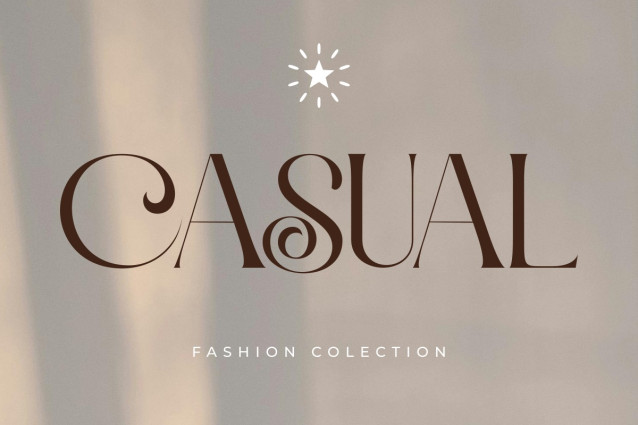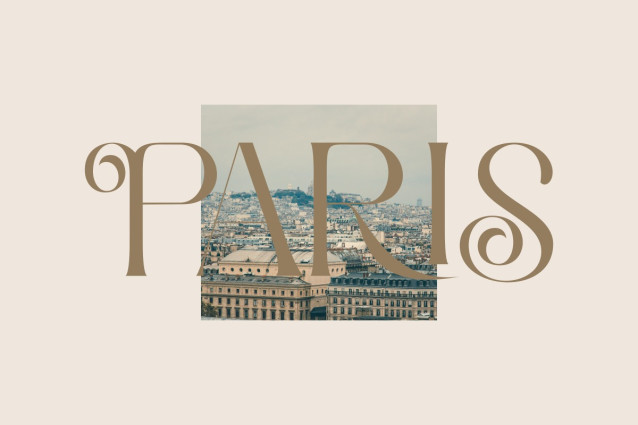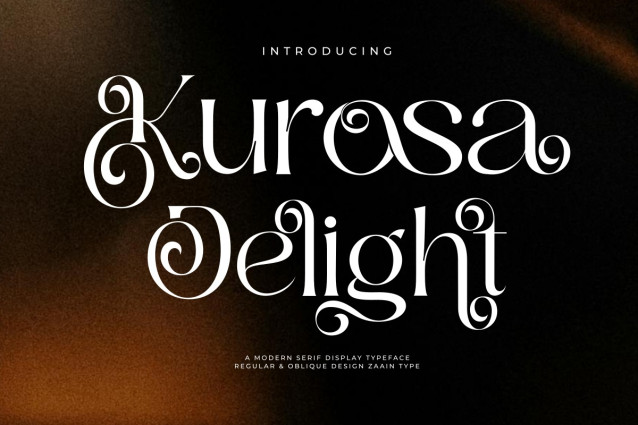
Kurosa Delight Font
Kurosa Delight Font is an elegant serif font that strikes a perfect balance between classic and modern. Available in two styles—Regular and Oblique—this typeface is designed to bring a luxurious and distinctive touch to any design. Perfect for branding, editorials, and premium packaging, Kurosa Delight is ready to become a signature element in your visual work